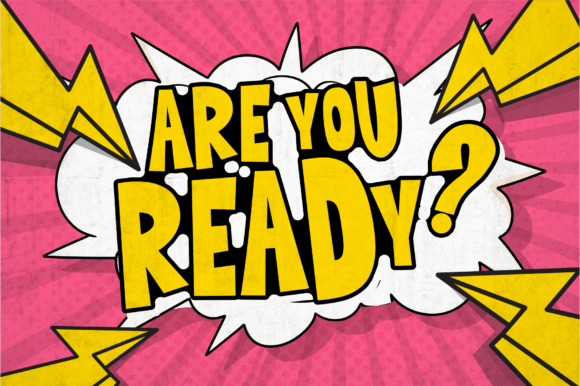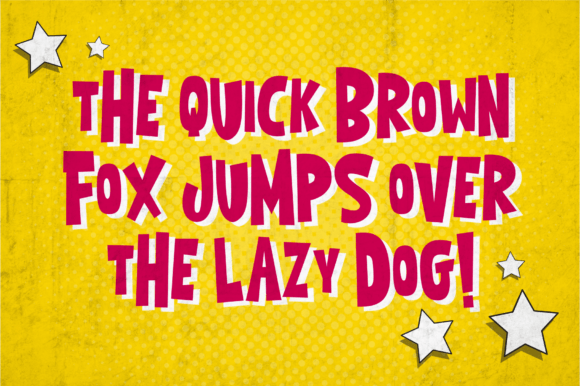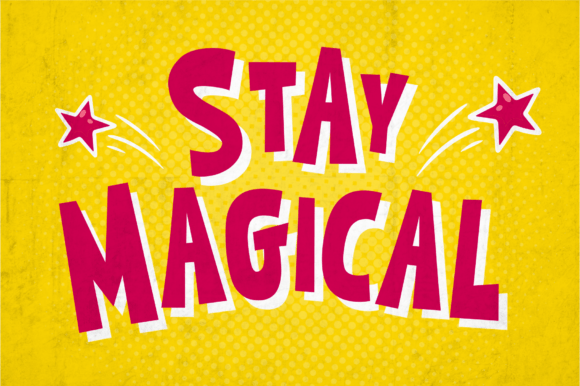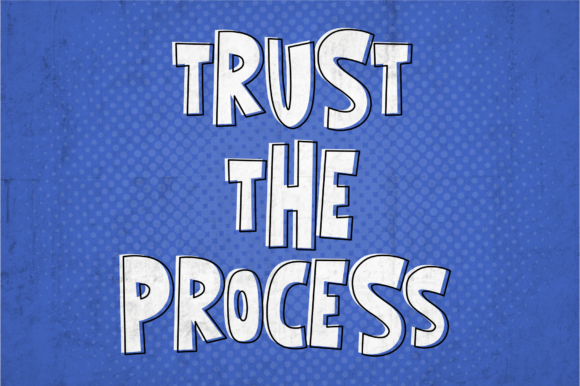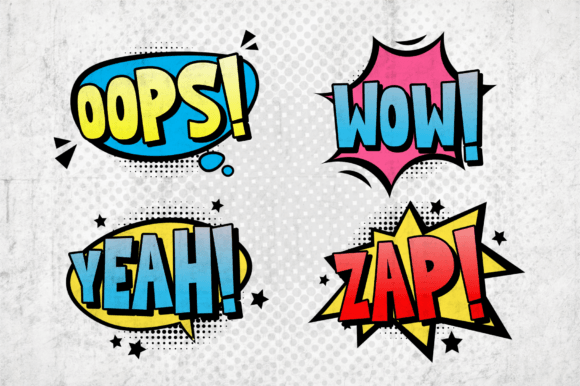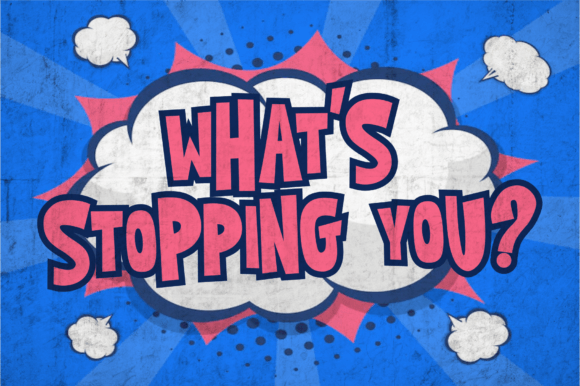
Introduction to Moon Starlaa Font
Have you ever been working on a creative project, pouring your heart and soul into a comic book or graphic novel, only to feel like something is missing? The perfect font can make all the difference. That’s where the Moon Starlaa Font comes in – a dynamic comic font that will bring your designs to life with its vibrant energy and whimsical characters.
As a designer, you know how valuable a high-quality font can be. Not only does it enhance the overall aesthetic of your work, but it also helps to convey the tone and atmosphere you’re trying to create. And with the Moon Starlaa Font, you’ll have a versatile design resource at your fingertips – perfect for posters, comic books, and more. Whether you’re working on a project with a transparent background or need a font that can stand out on its own, the Moon Starlaa Font is sure to impress.
Key Features of Moon Starlaa Font
- Unique, hand-drawn design ideal for creative projects requiring a touch of elegance and whimsy.
- Designed with a range of characters, including uppercase and lowercase letters, numbers, and special symbols.
Honest Review: Moon Starlaa Font
As a designer, I’m always on the lookout for high-quality design resources to elevate my creative projects. The Moon Starlaa Font is one such resource that caught my attention, and I’m excited to share my honest review with you.
One of the standout features of the Moon Starlaa Font is its elegant and whimsical design style, perfect for adding a touch of magic to your projects. ✨ The font is highly customizable, allowing you to adjust the size, color, and even the transparency of the text. Speaking of transparency, I was impressed by the availability of a transparent background option, making it seamless to integrate with other design elements.
Here are some key features that work well:
- High-quality design with a unique, whimsical feel
While the Moon Starlaa Font is an excellent addition to any designer’s toolkit, I did encounter some limitations:
- ⚠️ Some users may find the font’s complexity overwhelming, especially for beginners
Overall, I’m thoroughly impressed with the Moon Starlaa Font. Its unique design style and customization options make it a valuable resource for designers working on creative projects. If you’re looking for a high-quality, free design resource, I highly recommend giving the Moon Starlaa Font a try.
Tips for Getting the Most Out of Moon Starlaa Font
Use the Moon Starlaa Font for high-quality design projects, such as branding, logos, or graphics. Take advantage of its transparent background feature to create stunning designs. Experiment with different font sizes and styles to create visually appealing effects.
Common Use Cases for Moon Starlaa Font
The Moon Starlaa Font is a versatile design resource perfect for creative projects, including posters, flyers, and social media graphics. Its high-quality design makes it ideal for use in presentations, documents, and branding materials.